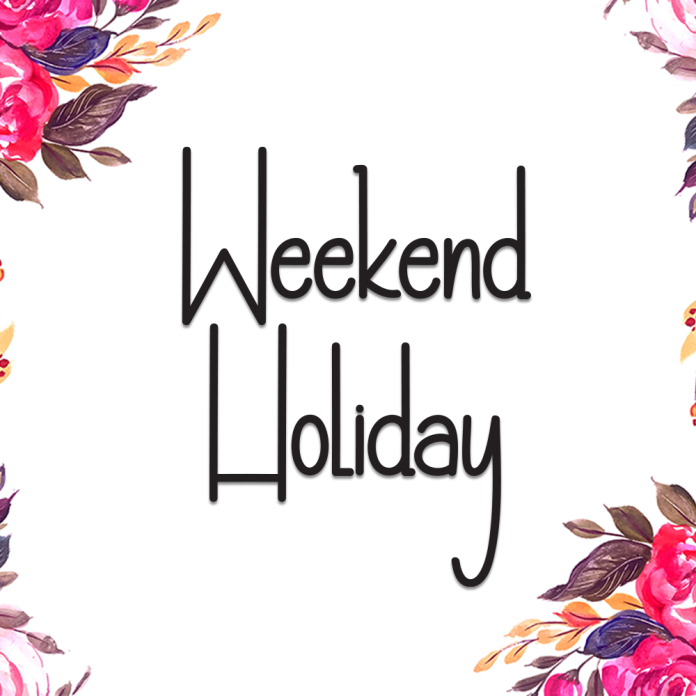
Weekend Holiday is a cheerful and bold display font that captures the spirit of relaxation, sunshine, and carefree adventures. With chunky letterforms and playful curves, it’s perfect for summer-themed projects, travel posters, beach party invitations, and anything that needs a splash of vacation energy.
Its eye-catching style makes it ideal for large titles, headlines, and creative branding that aims to spread joy and positive vibes.
Bold and fun display design
Energetic and friendly vibe
Great for travel, summer, kids, and leisure themes
Bring the weekend getaway feeling to your designs with Weekend Holiday!